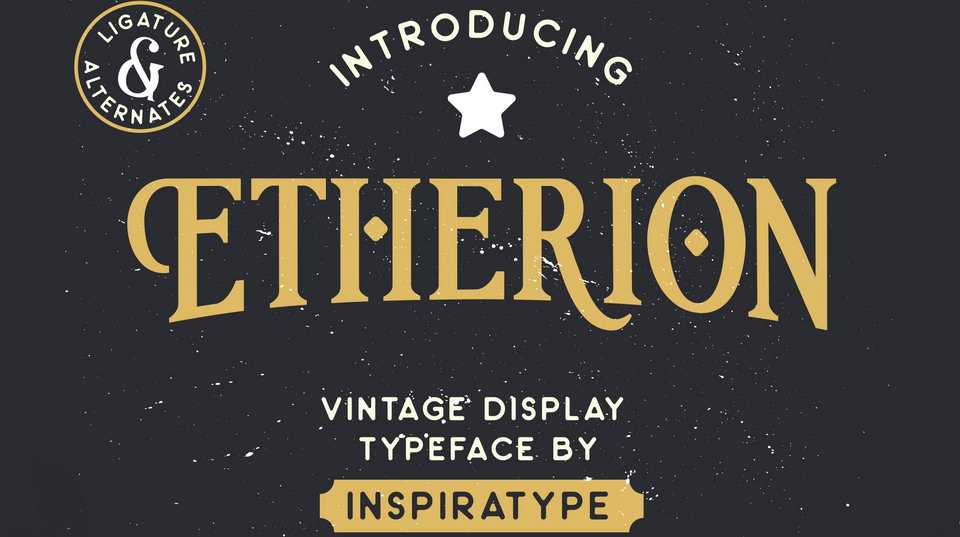
Download Etherion font – a display serif made by hand, inspired by classic posters. It’s perfect to use for logotype, letterhead, poster, apparel design, label and etc.
Designer: Inspiratype